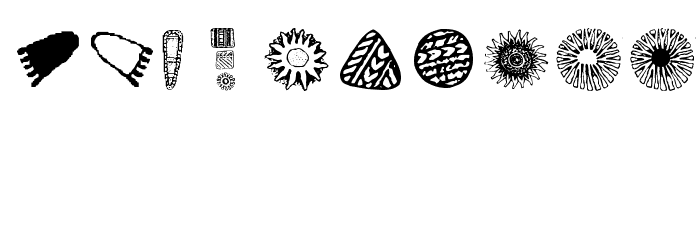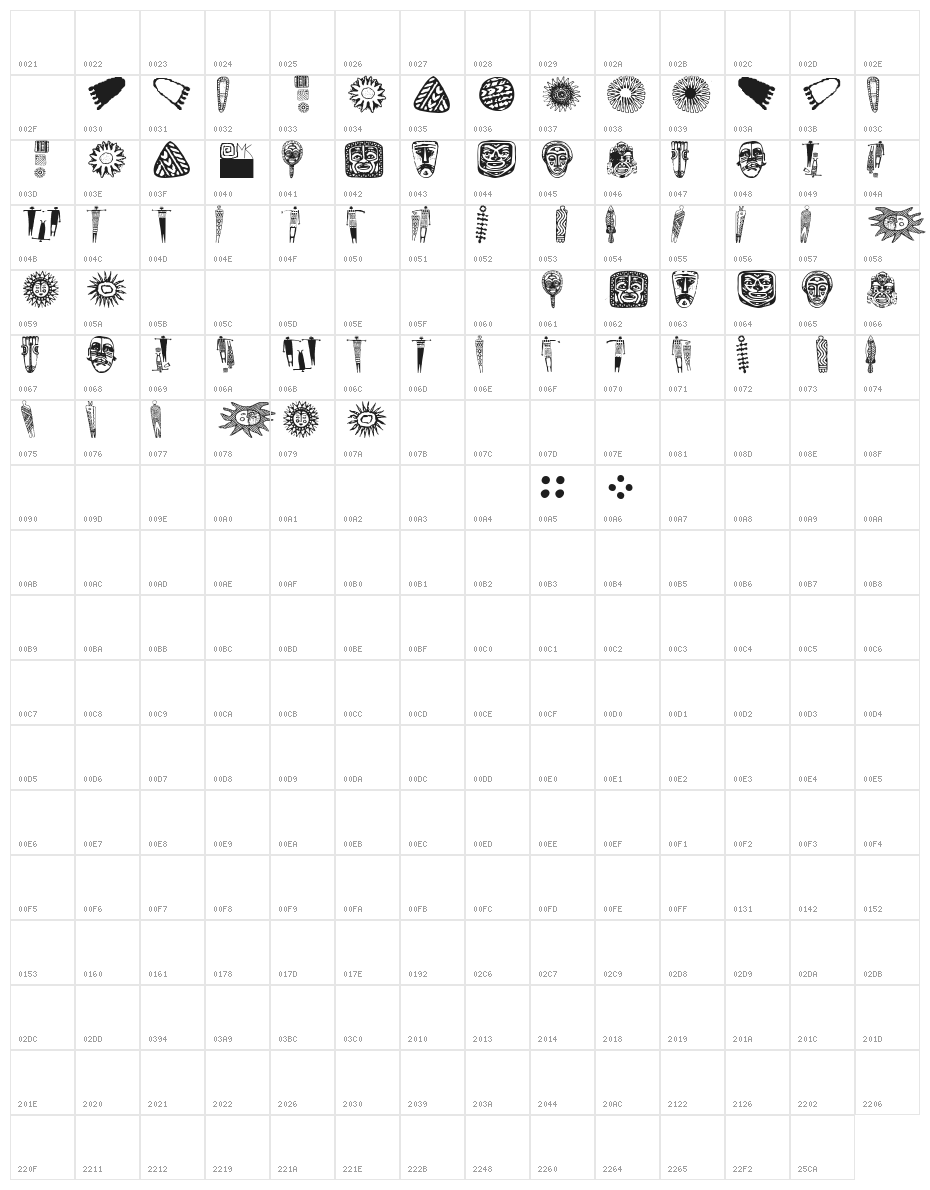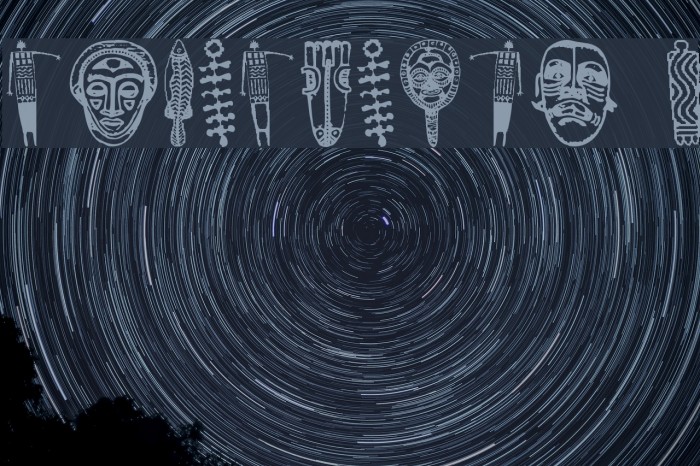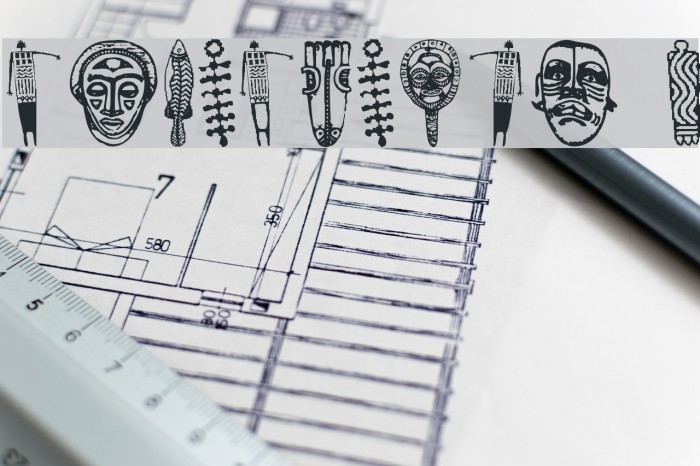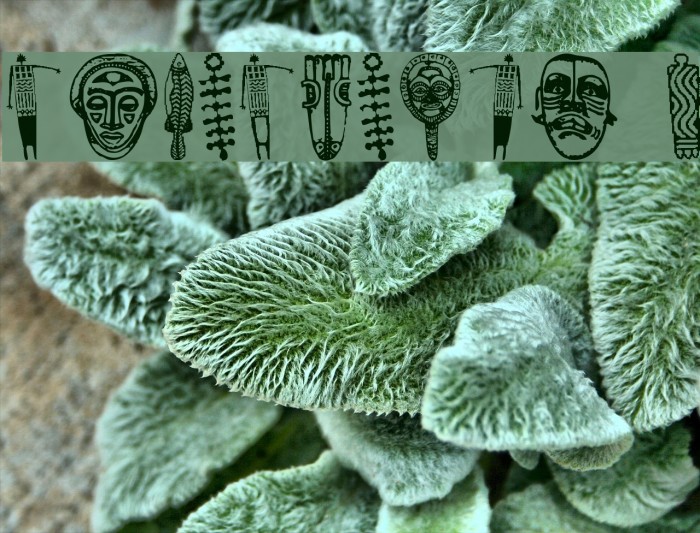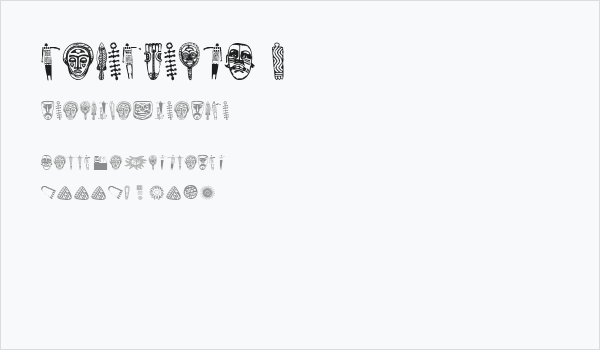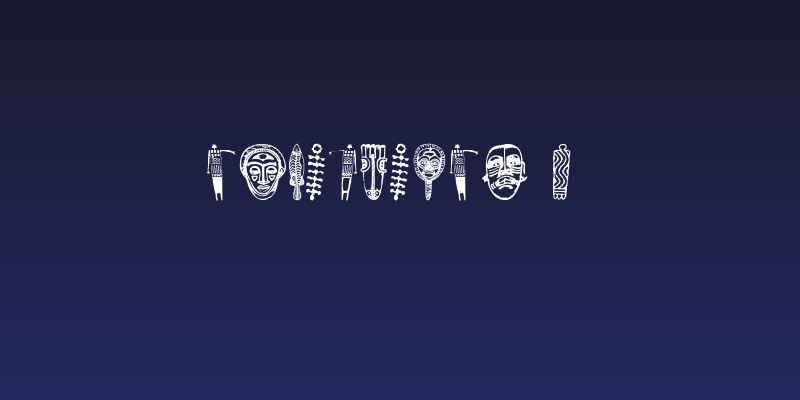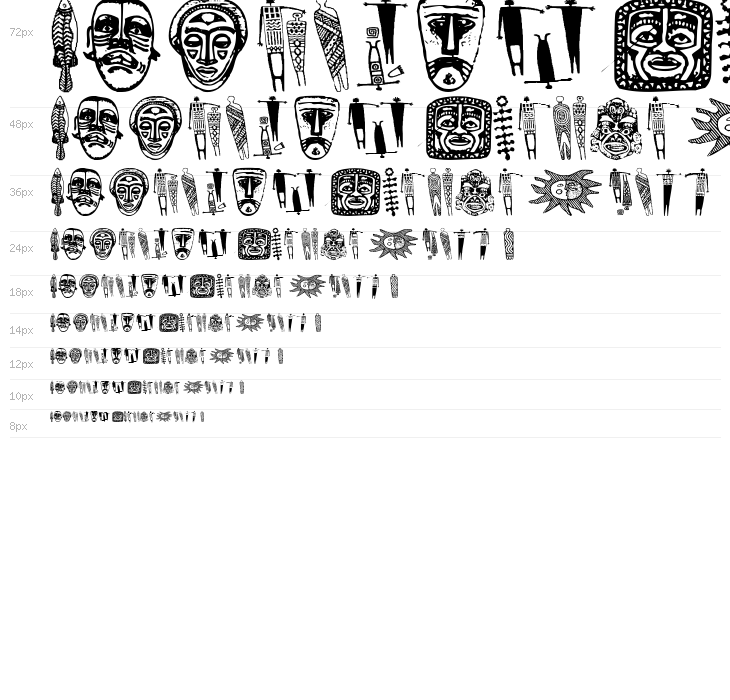
Petrographs Font
Petrographs Description
A highly decorative, illustrative font inspired by ancient petroglyphs and tribal art, featuring hand-drawn faces, figures, and sun motifs with intricate line work and organic shapes.
| Overall Style | Decorative, Tribal, Primitive |
| Use Case | Logos, Headlines, Themed graphics, Artistic projects |
| Proposed Projects | Posters, album covers, cultural event branding, art installations, educational materials on history or anthropology. |